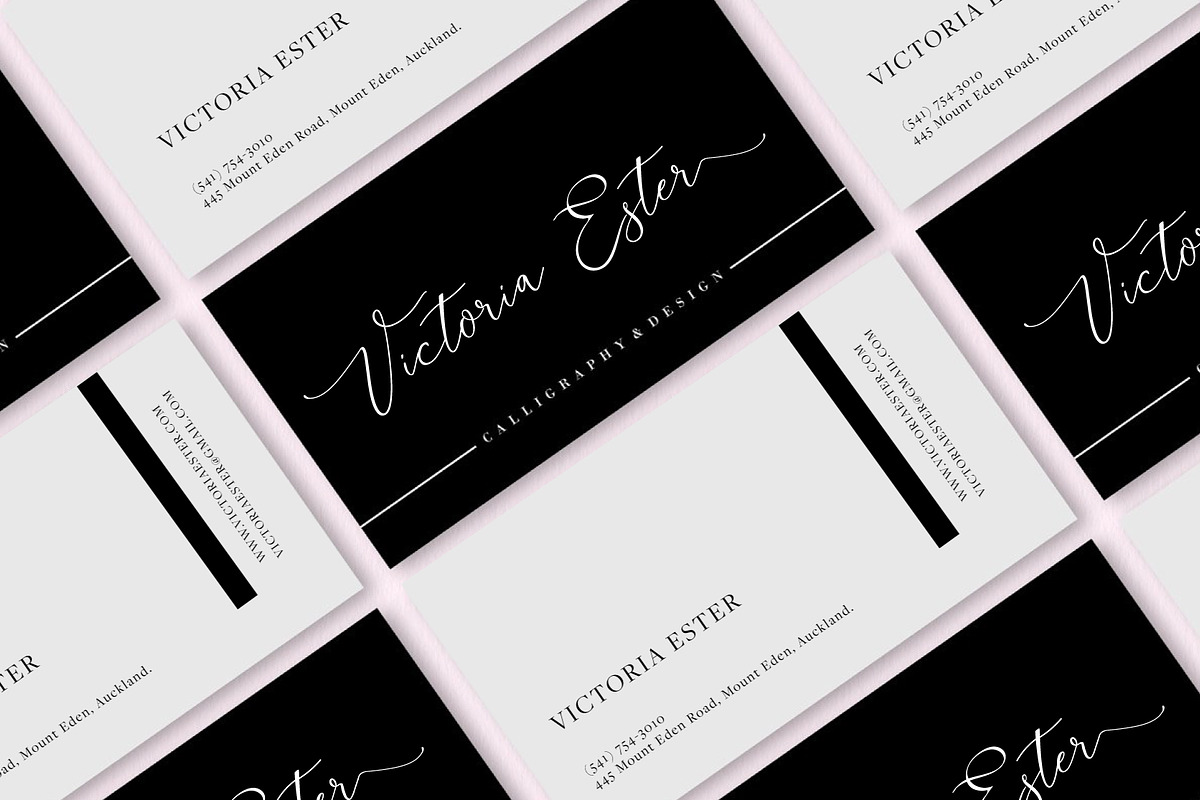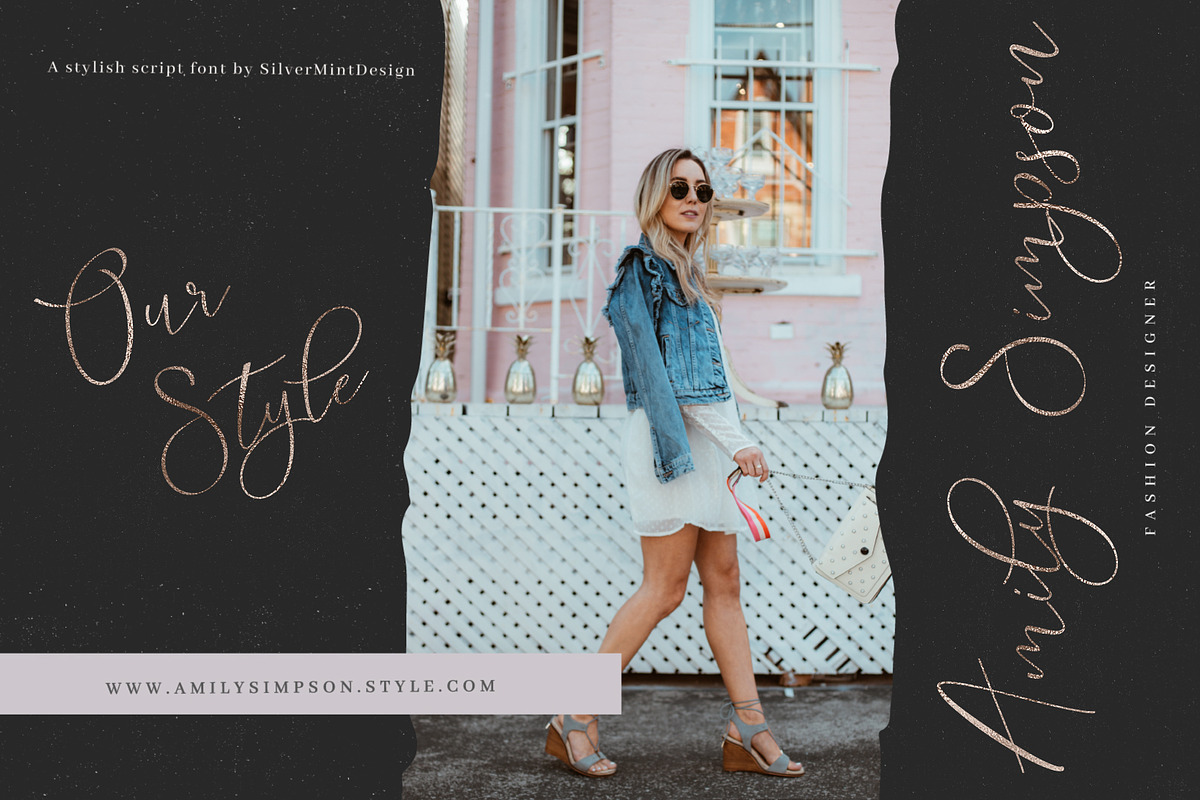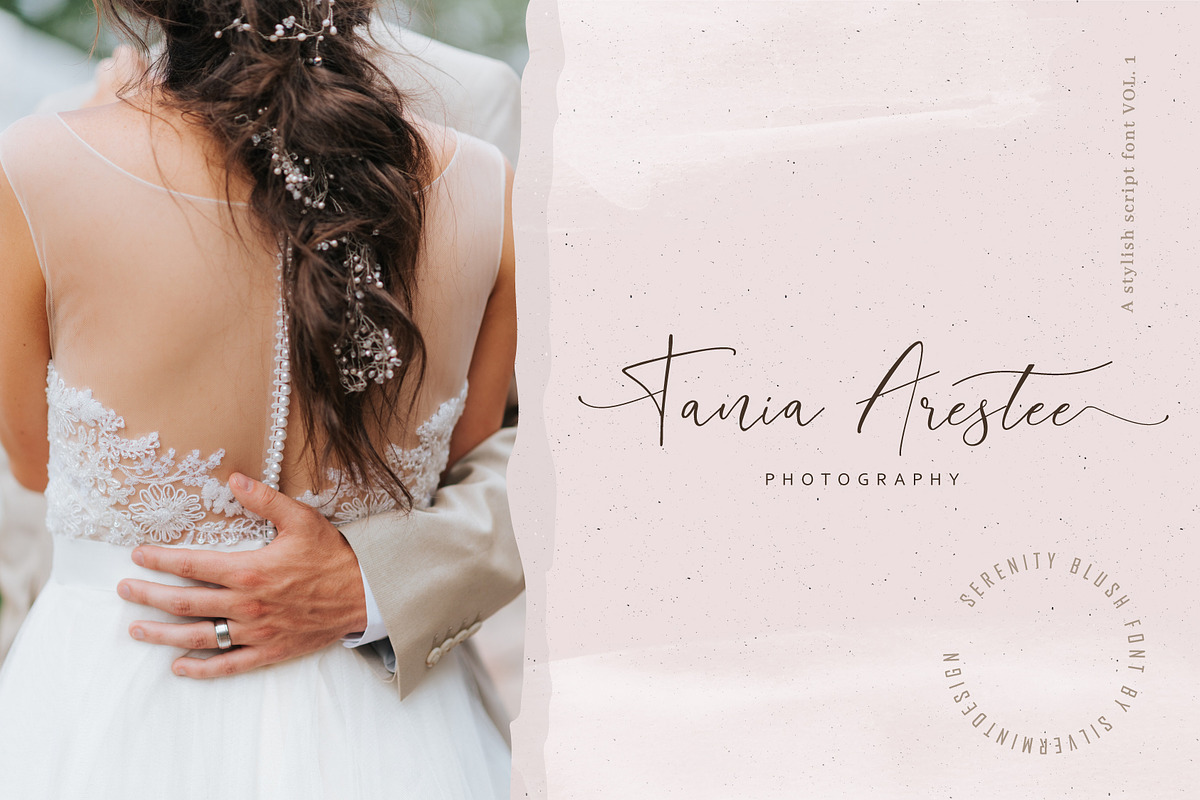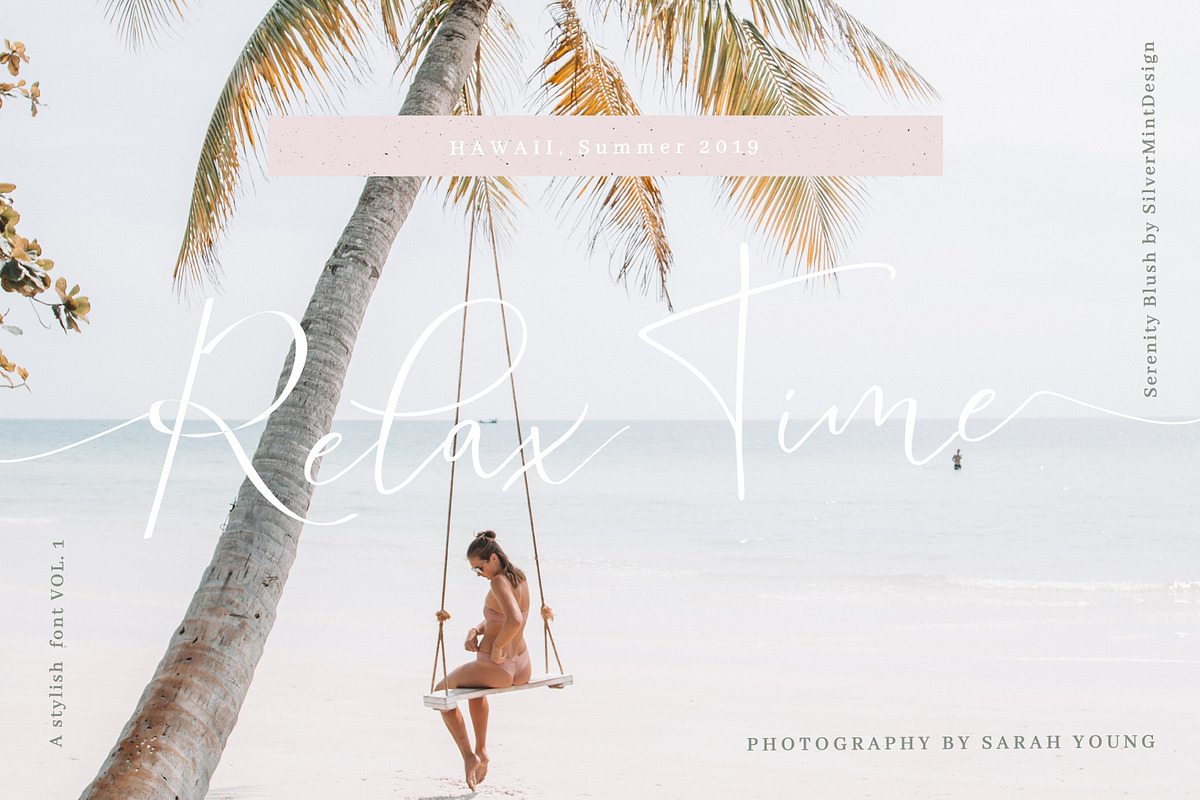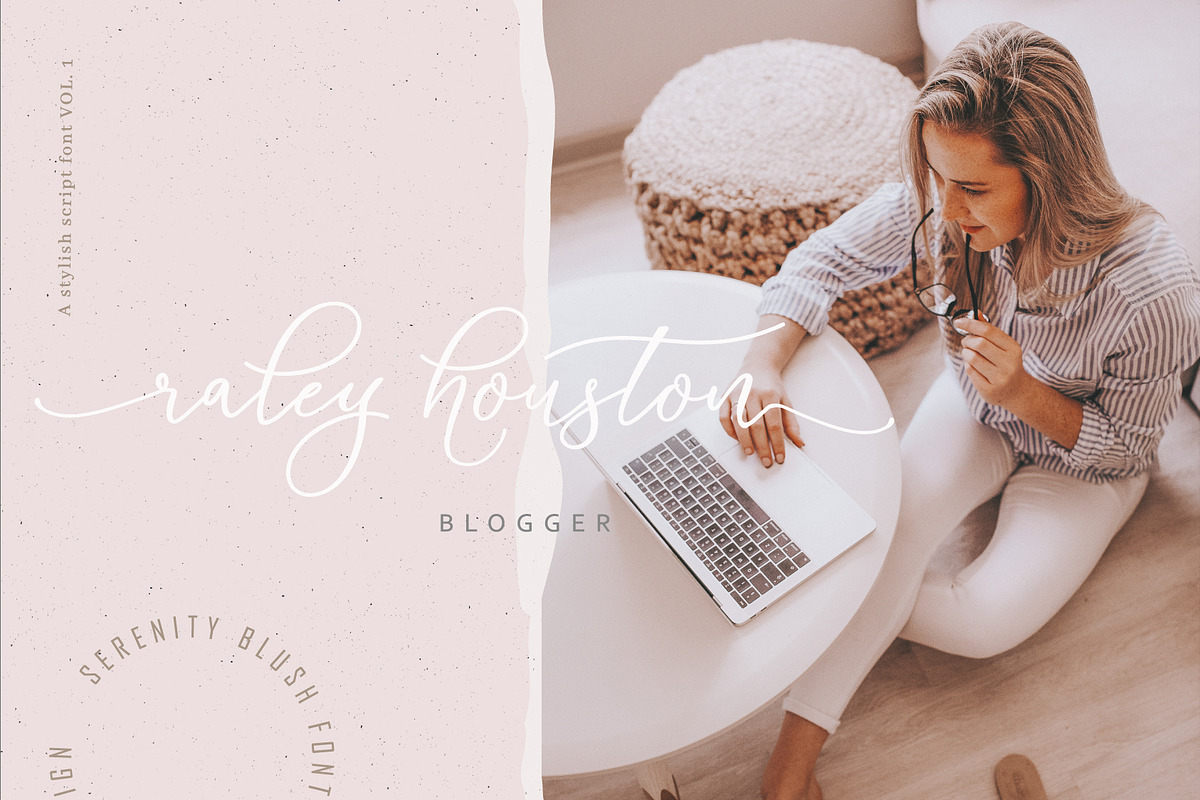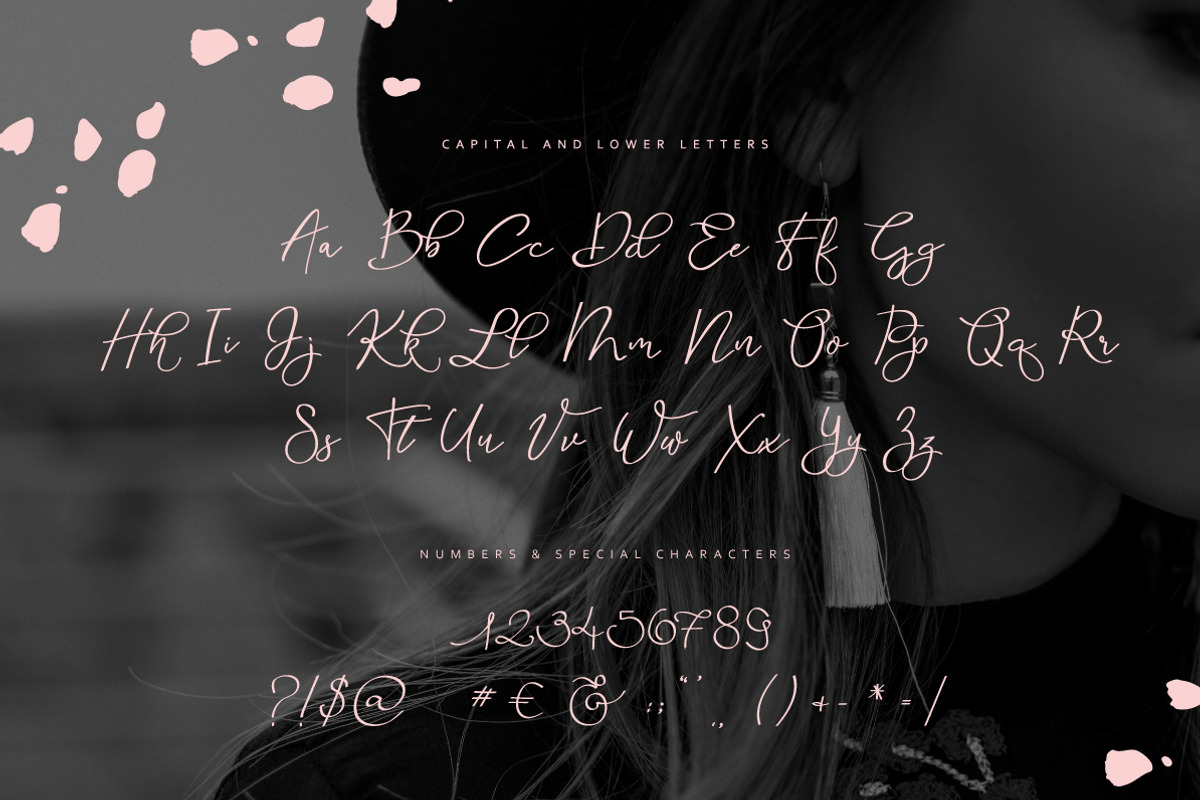
Serenity Blush
Introducing the lovely new Serenity Blush Font!
Serenity Blush was built with OpenType features and includes beginning and ending swashes, numbers, punctuation, alternates and ligatures :) Every single letter has been carefully crafted to make your text looks beautiful. Serenity Blush is perfect for elegant logos, upscale packaging, wedding stationery, websites, and any other projects requiring a handwritten and luxurious touch.